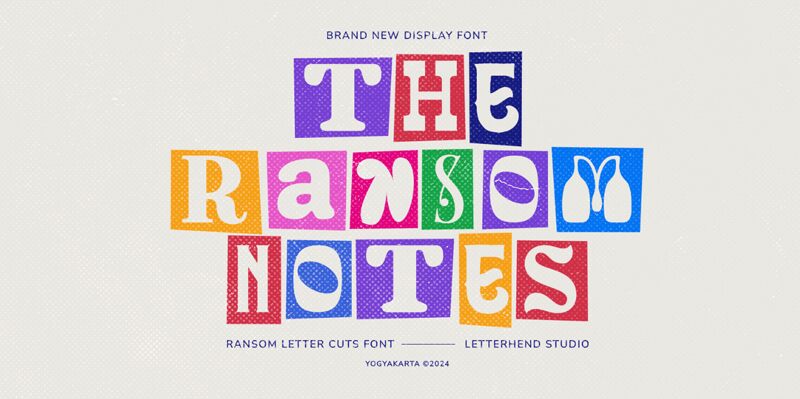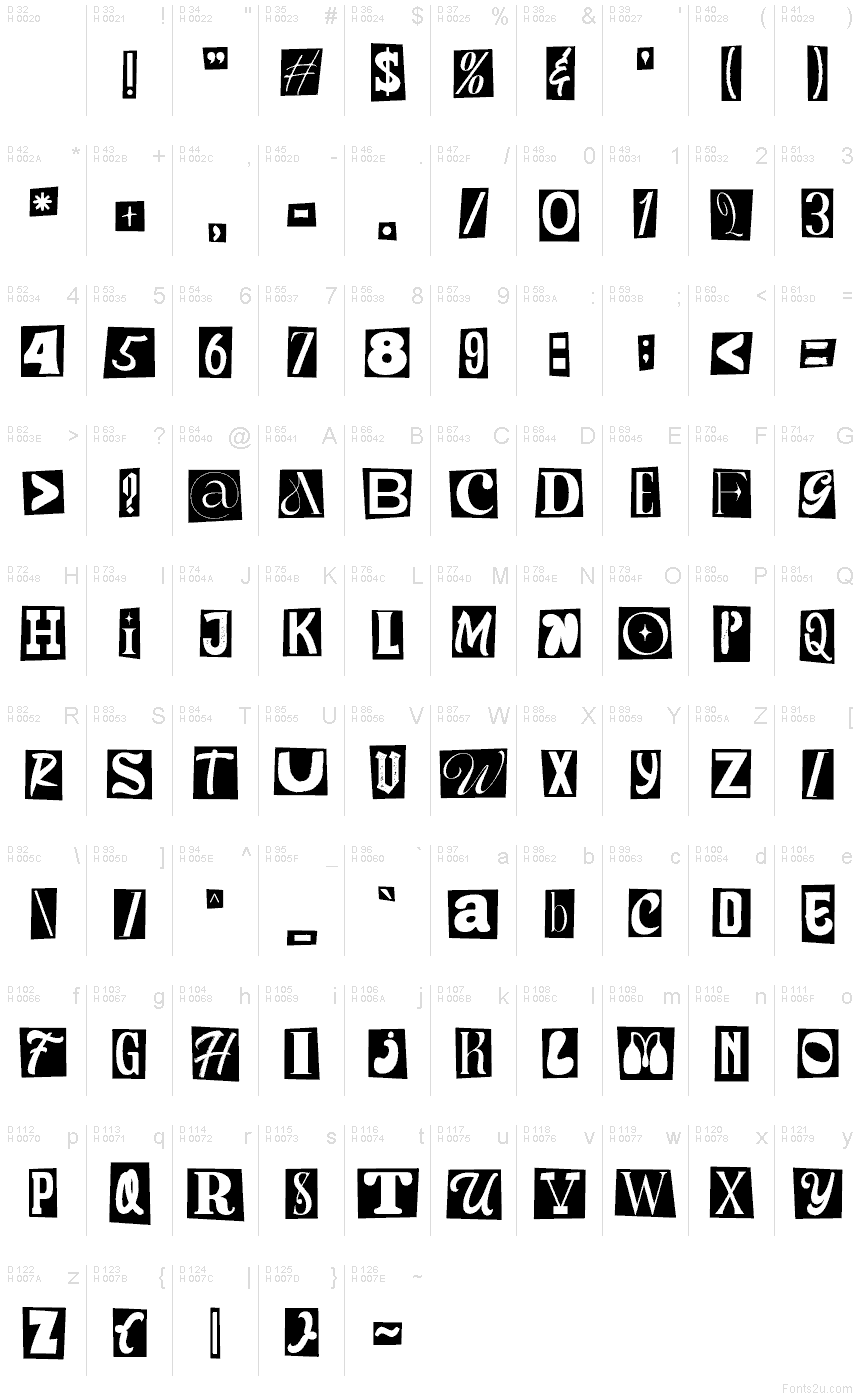
TheRansomNotes-Regular
The Ransom Notes font by Letterhend Studio is a bold display typeface with an eclectic and chaotic composition. It features mixed typography styles with a cut-out appearance and variability in letterform shapes, giving it a collage-like aesthetic. This distorted font is reminiscent of vintage ransom notes, infusing mystery and intrigue into any design.
It’s perfect for album covers, artsy posters, or alternative event promotions. Use it for DIY projects, counterculture art pieces, mystery-themed invitations or books, movie posters, zines, websites related to detective stories or true crime content, eclectic brand packaging designs like wine labels or coffee packs – the possibilities are endless!